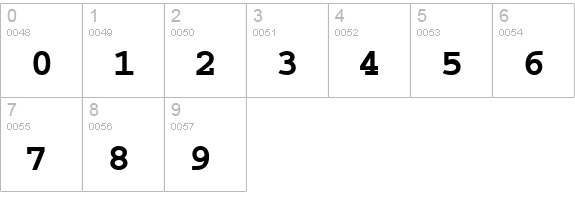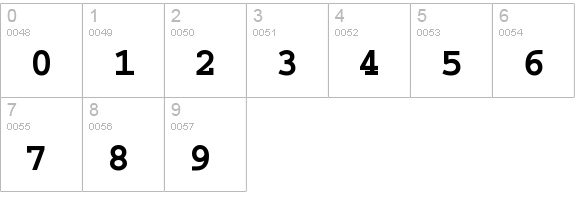
Alphabet font is a modern and stylish typeface that exudes elegance and sophistication. With its clean lines and sleek design, Alphabet font is perfect for a wide range of projects, from branding to editorial design. This versatile font features a full set of uppercase and lowercase letters, numbers, and punctuation marks, making it suitable for all your design needs. The best part? Alphabet font is available for free download at FontsMarket.com! This means you can easily access this beautiful typeface and use it in your projects without any cost. Whether you're a seasoned designer looking to add a fresh font to your collection or a newbie designer exploring different typography options, Alphabet font is a fantastic choice that won't break the bank. So why wait? Head over to FontsMarket.com now to download Alphabet font for free and elevate your designs with this stunning typeface.